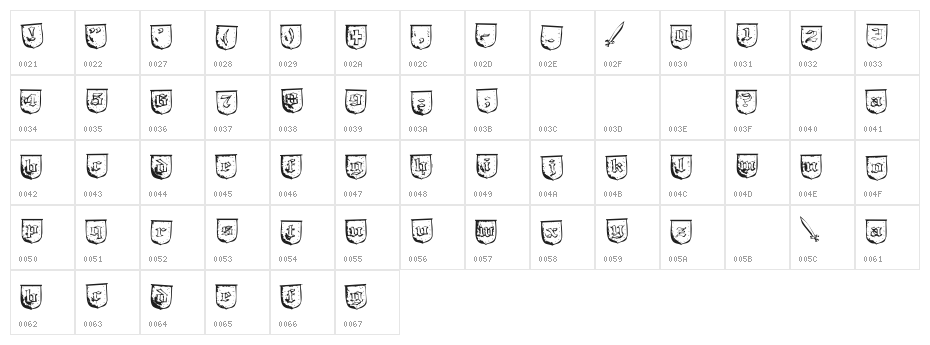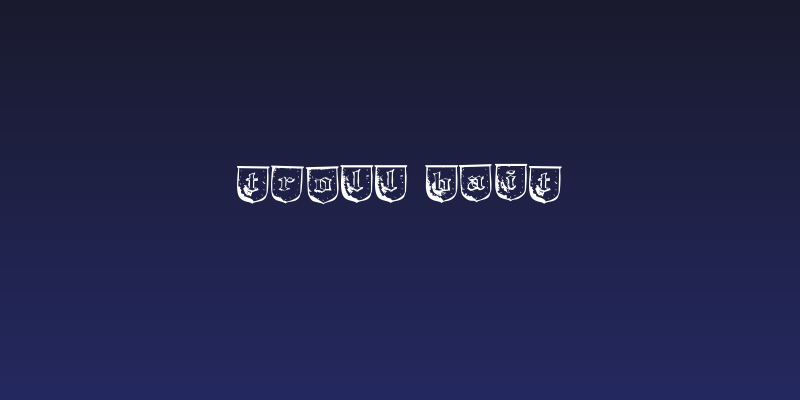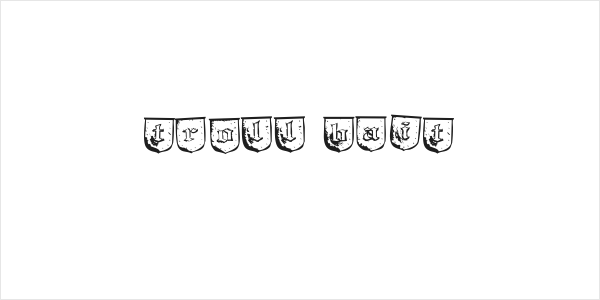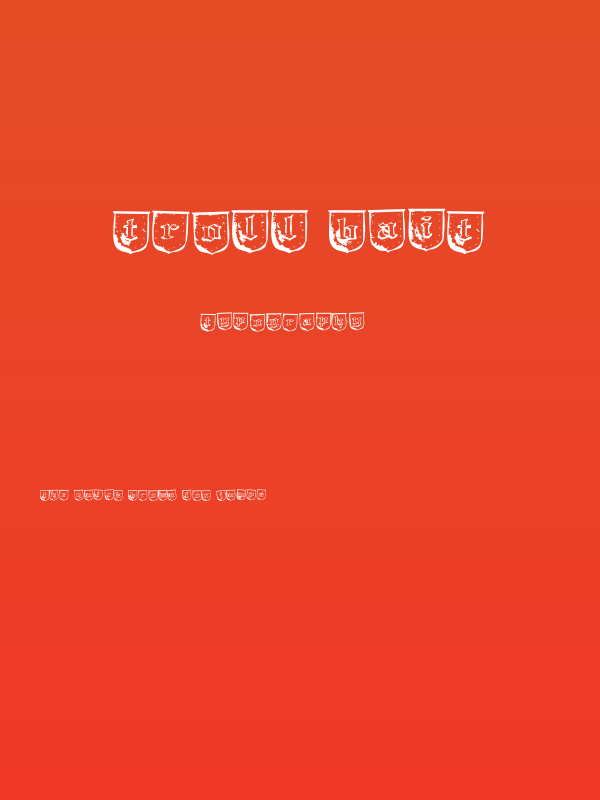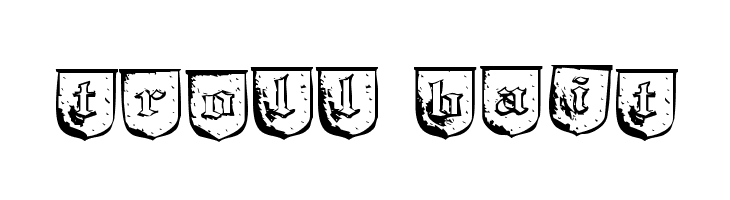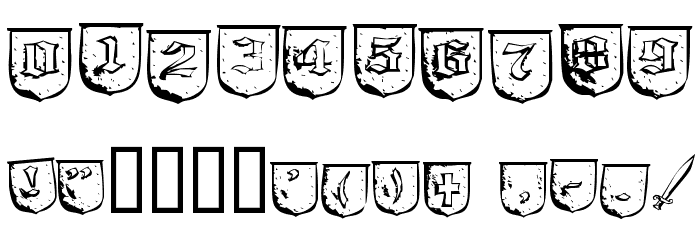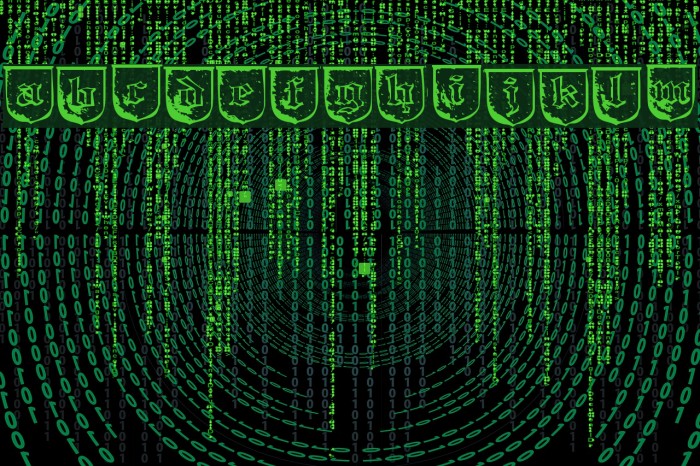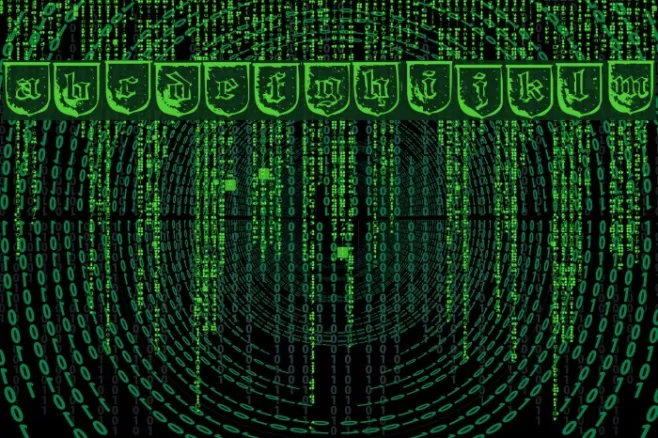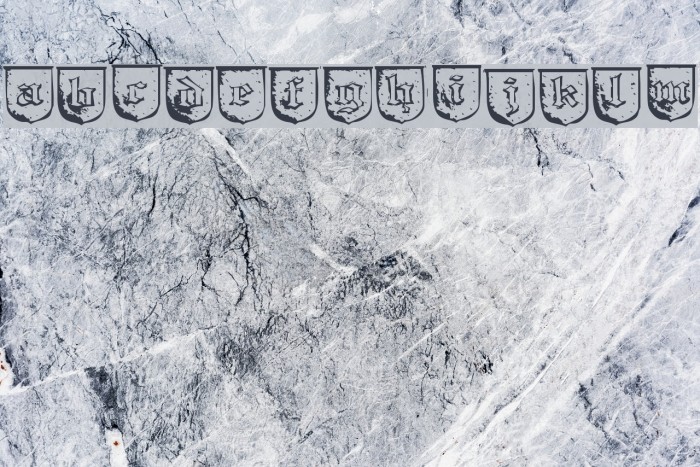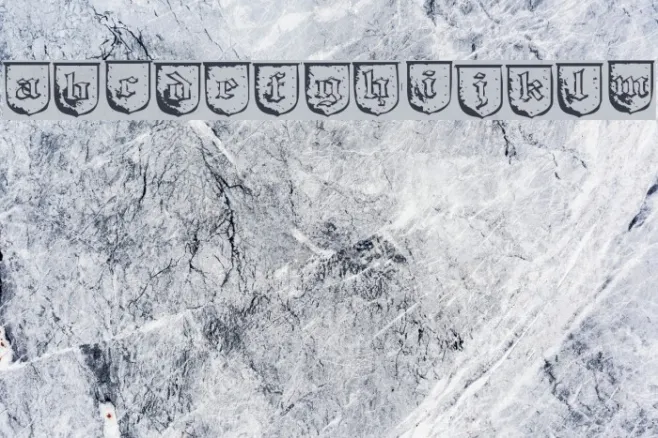
Troll Bait Font
Troll Bait Description
This font features a medieval, gothic style with a strong blackletter influence. Each character is enclosed within a shield-like shape, adding a distinct and decorative element. The letters have a textured, slightly distressed appearance, giving them an aged and historical feel. The strokes are bold and angular, with sharp serifs and intricate detailing that enhance the font's ornate quality. The numbers and special characters maintain the same stylistic elements, ensuring consistency throughout the typeface. This font is ideal for projects that require a historical or fantasy theme, such as book covers, posters, or themed event invitations.
| Proposed Projects | Book covers, fantasy-themed posters, historical event invitations. |